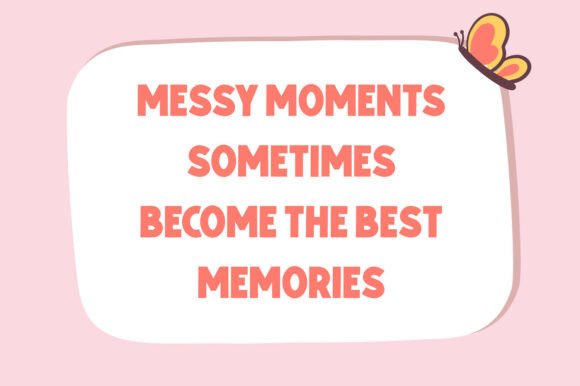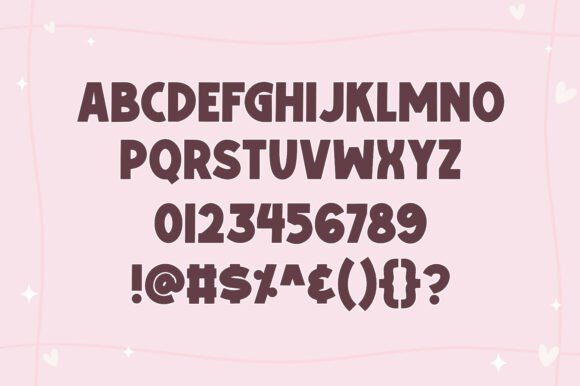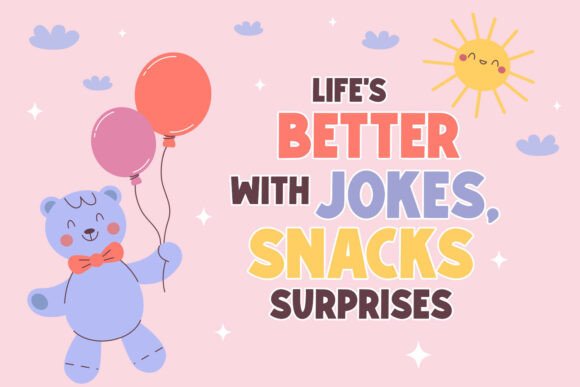
Introduction to Keilna Bears Font
Embrace joyful originality with β€˜Keilna Bears Font’.
This font takes the glee of creativity, melding it seamlessly with approachable energy to enhance your designs with lighthearted charm Drawing its essence from organic handwriting fused with crisp sans-serif architecture, it manages to strike a balance between being unrefined yet orderly, ensuring readability without compromising on expression.
Keilna Bears Font offers exceptional quality and versatility, making it a valuable addition to your design toolkit. Whether you’re creating for personal projects or commercial use, Keilna Bears Font delivers professional results.